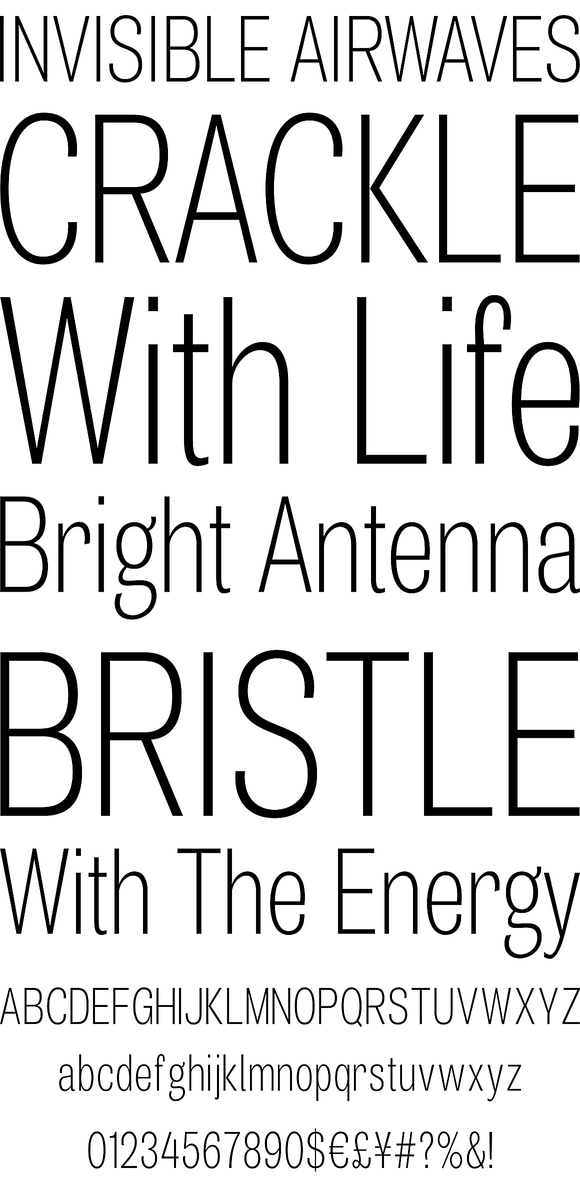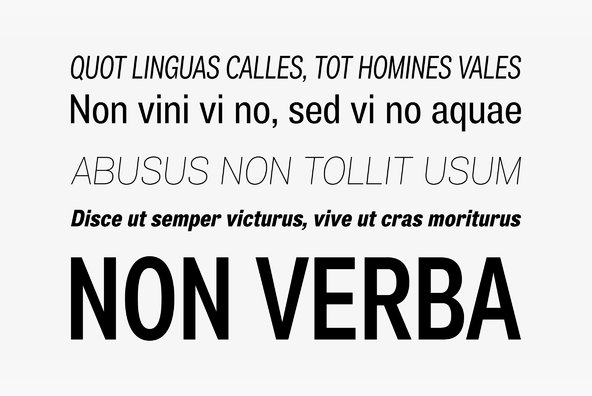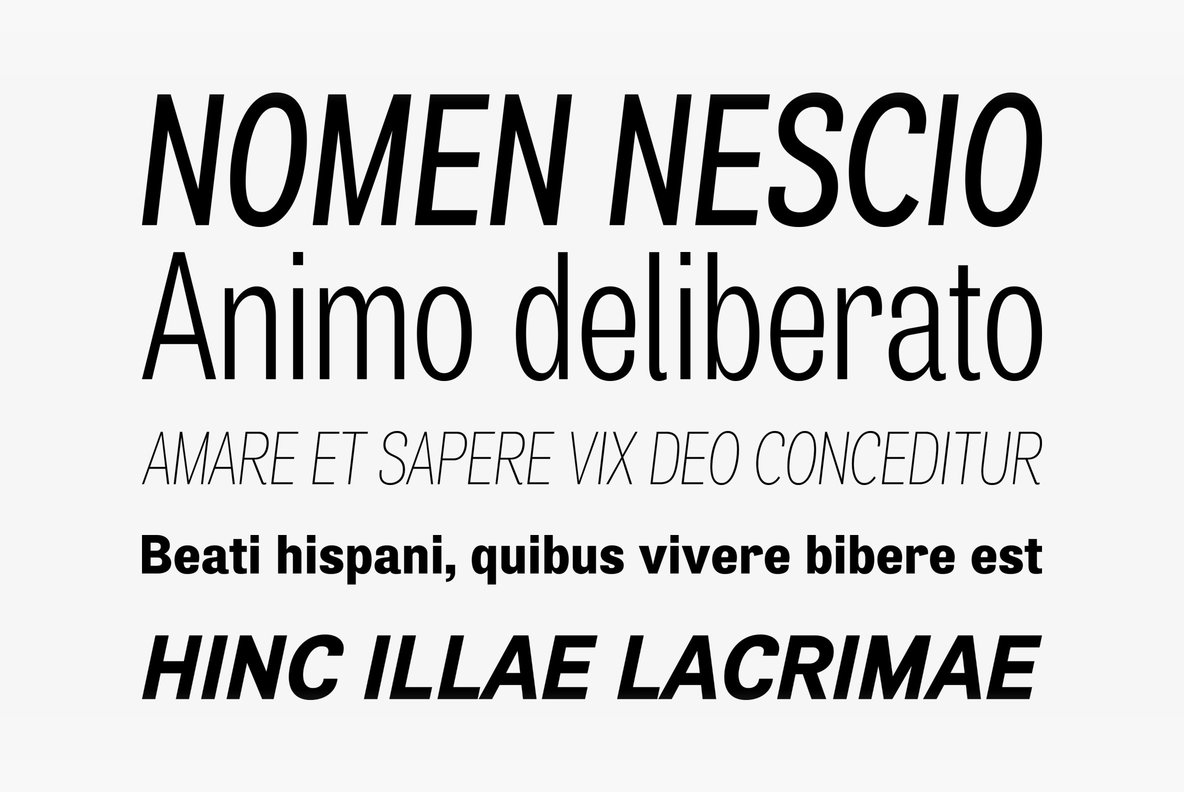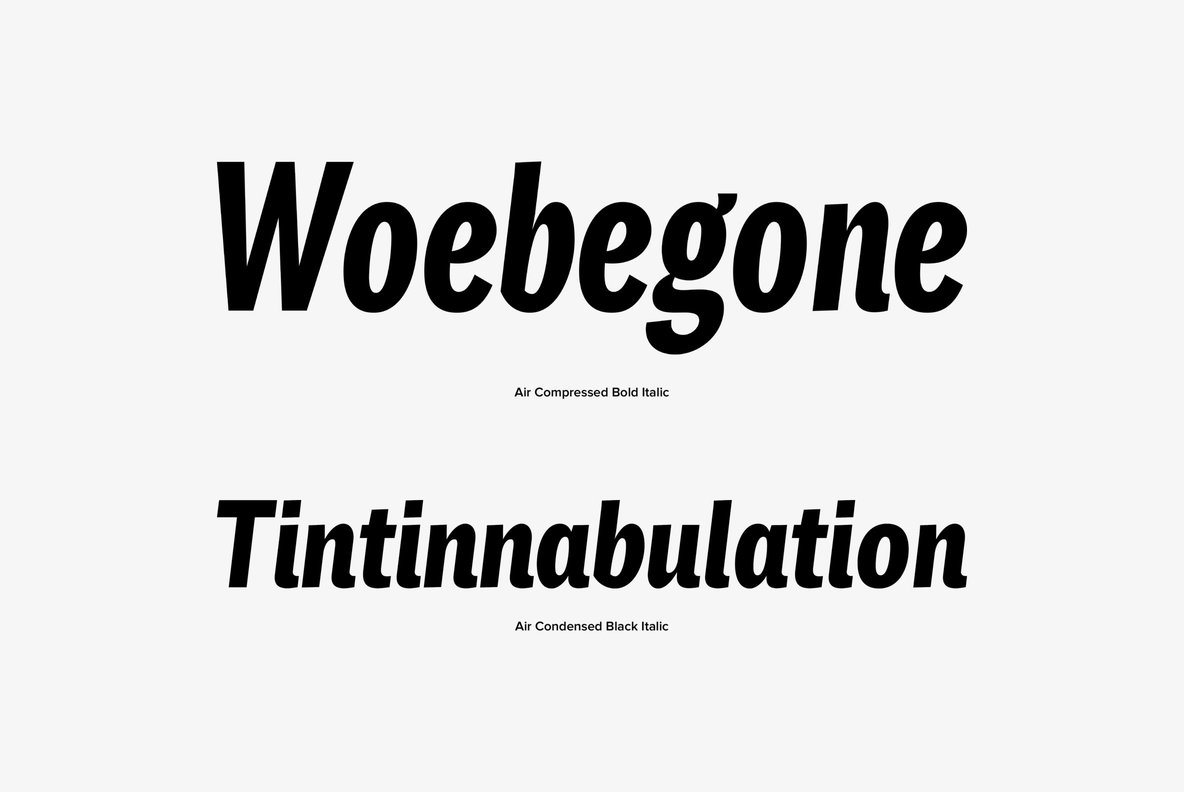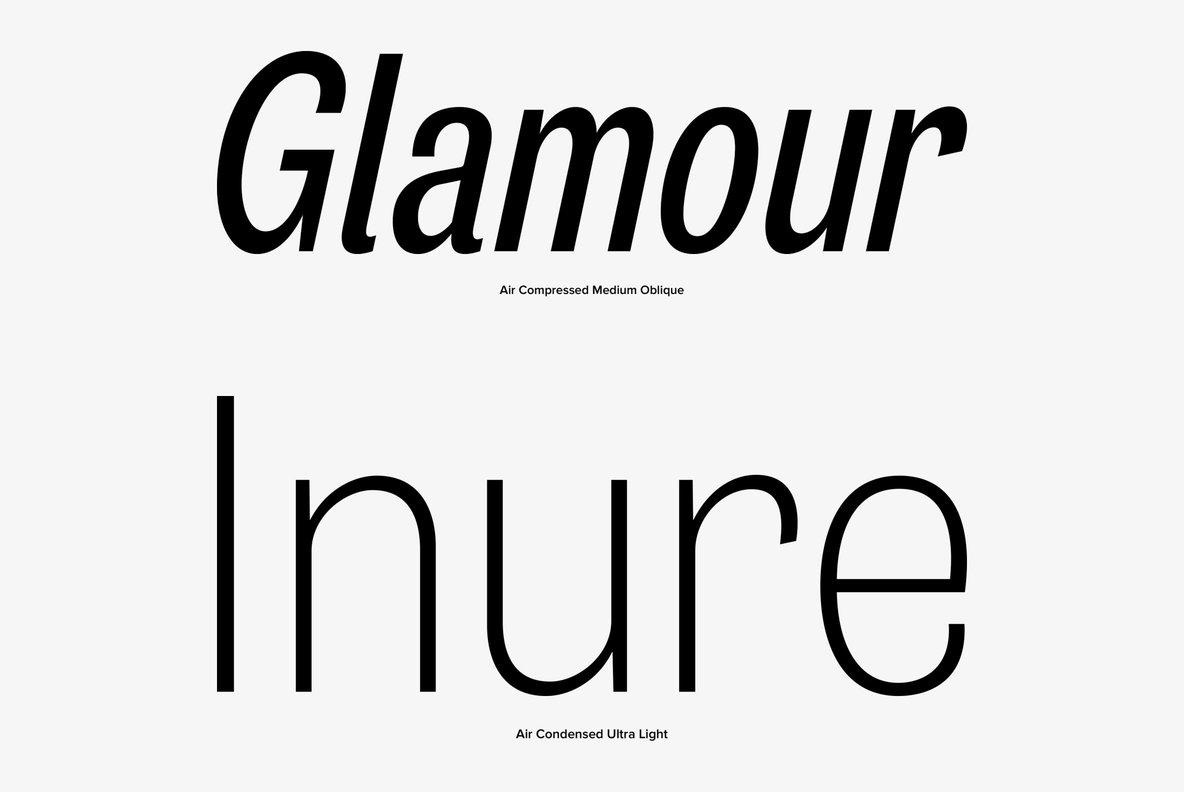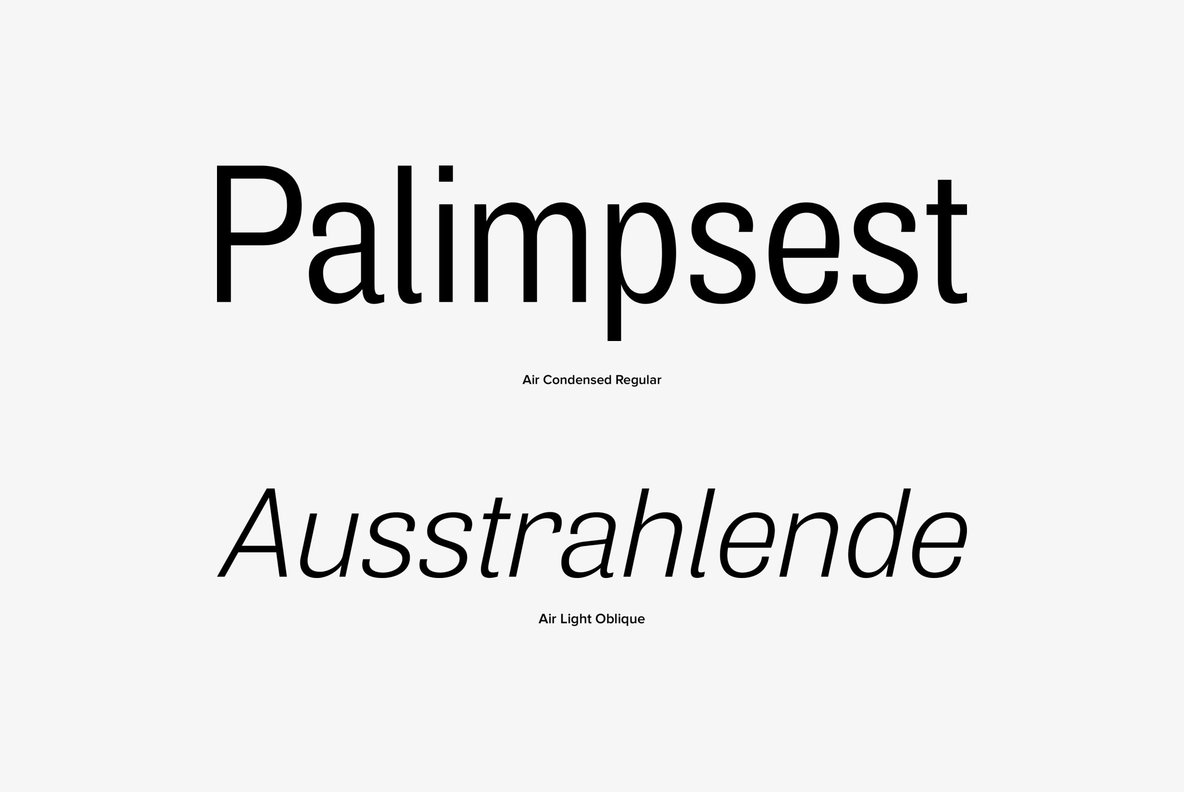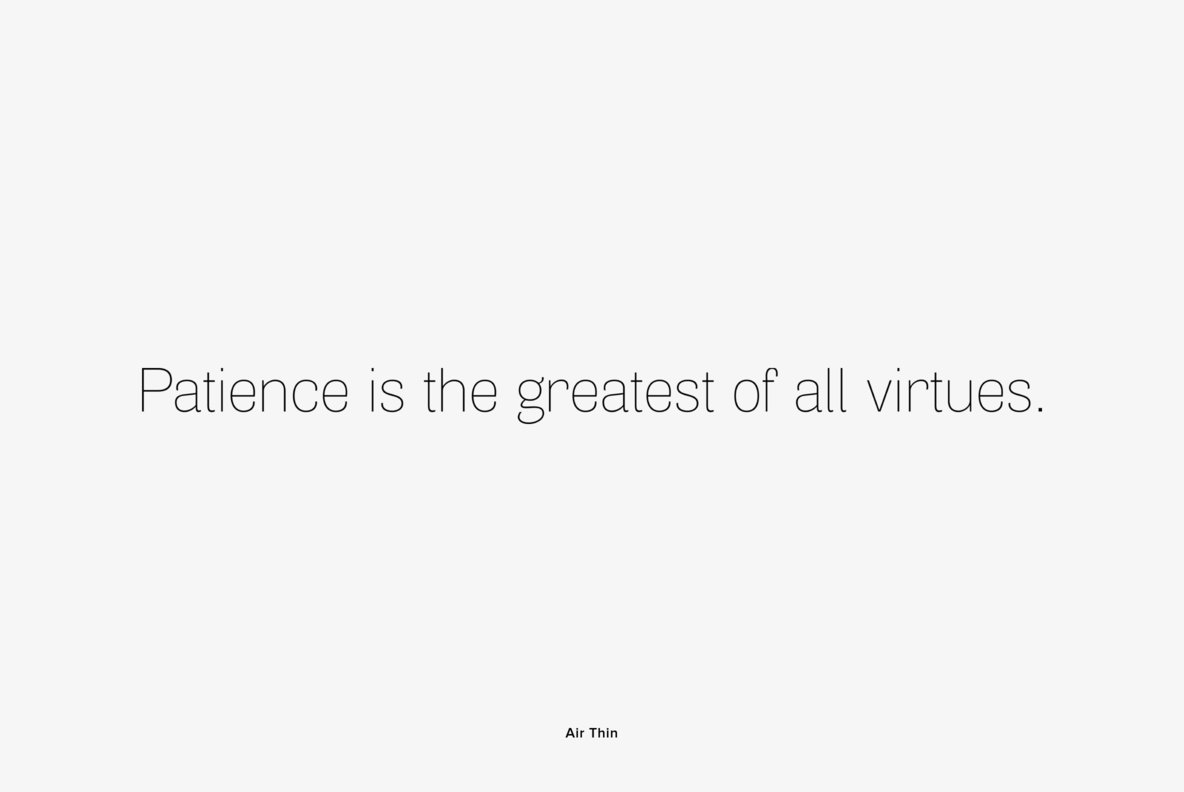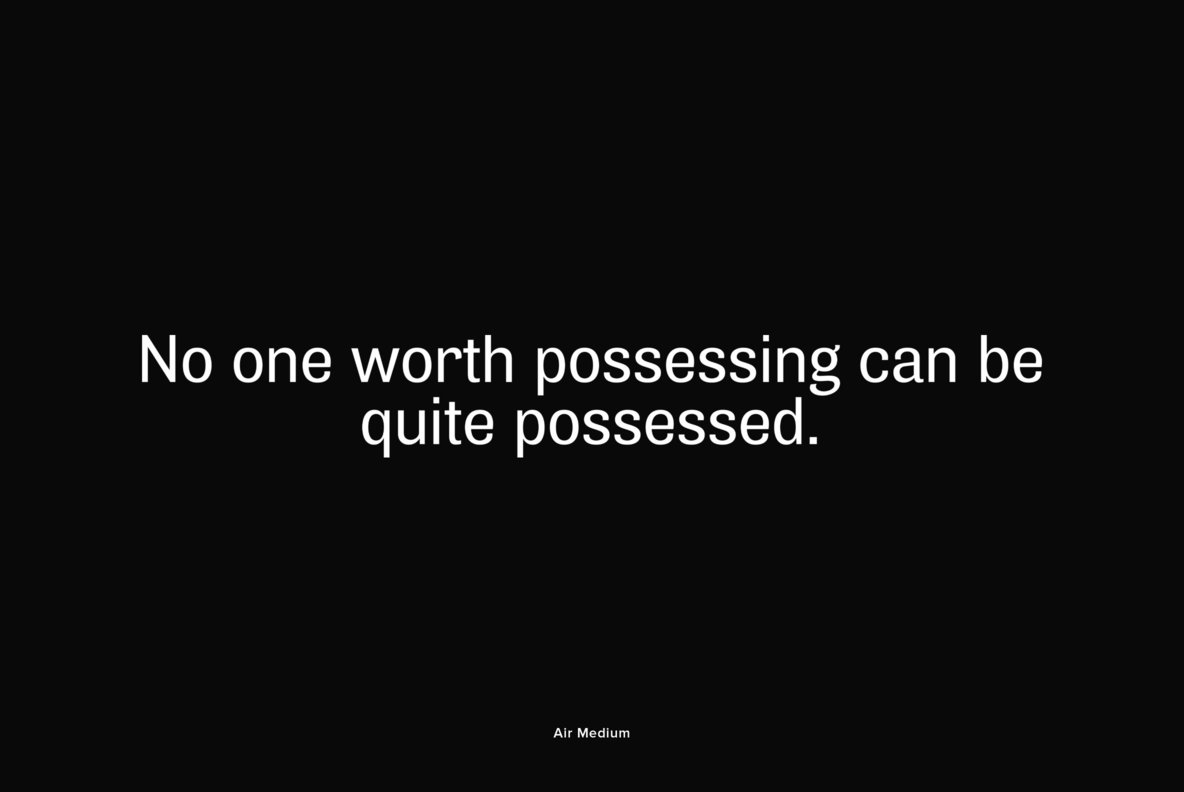
Air Superfamily
In B-movie awesomeness, Air began as Grotesk vs. Grotesque. I was trying to unify the prevailing traits of German and English Grotes(que/k)s in order make something different but familiar.